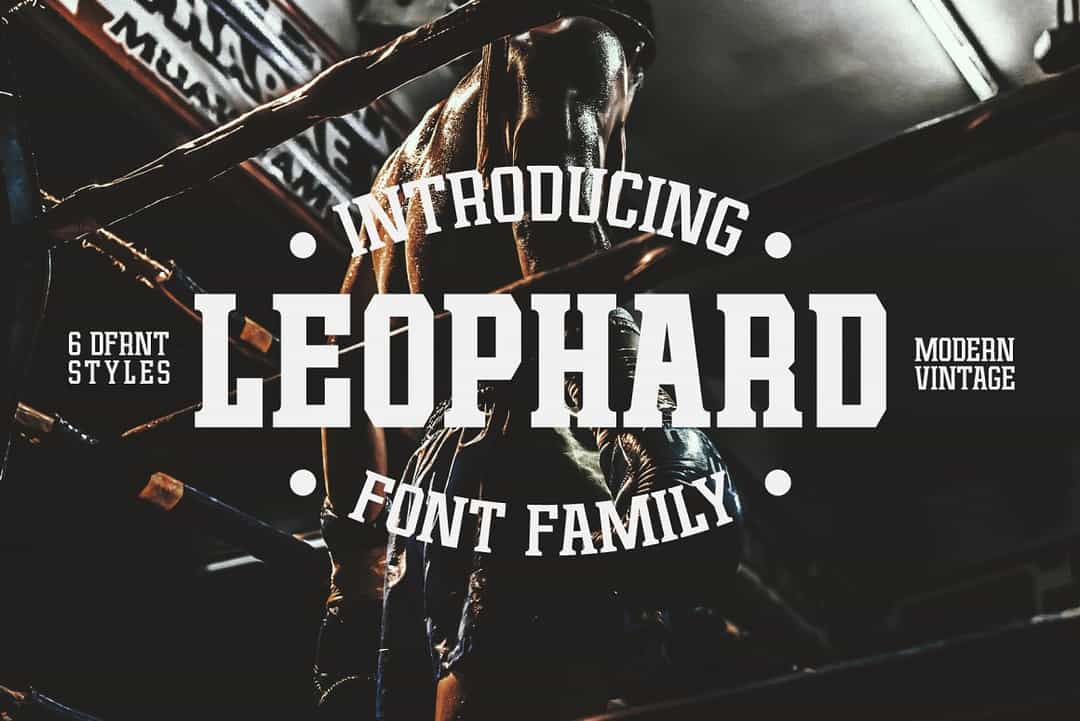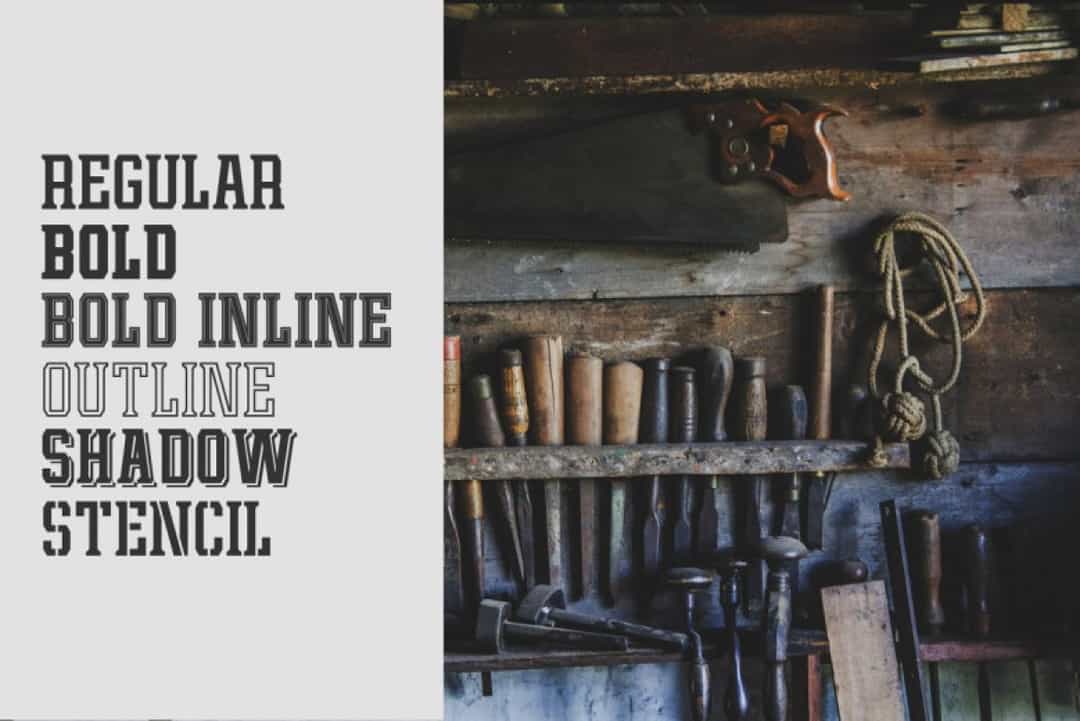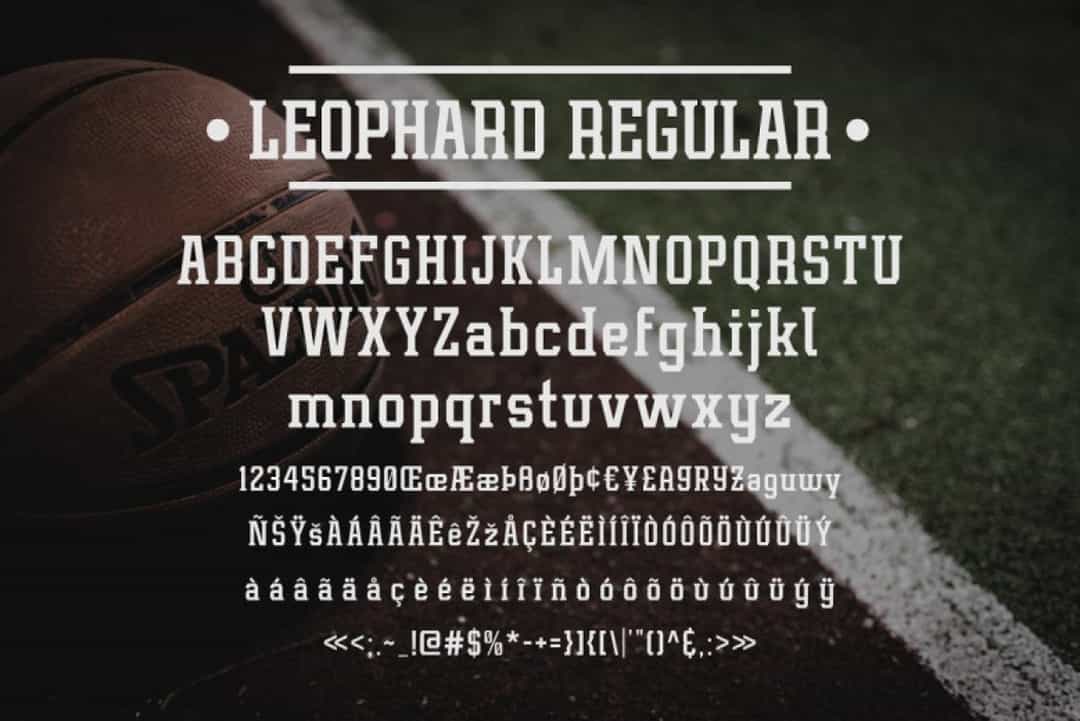
Leophard Font Family draws its design influence from sports and vintage design elements, with six distinct styles for you to incorporate into your work. Crafted using strong basic shapes that provide visual force appeal. Old school movement meets modern minimalism in this font family.